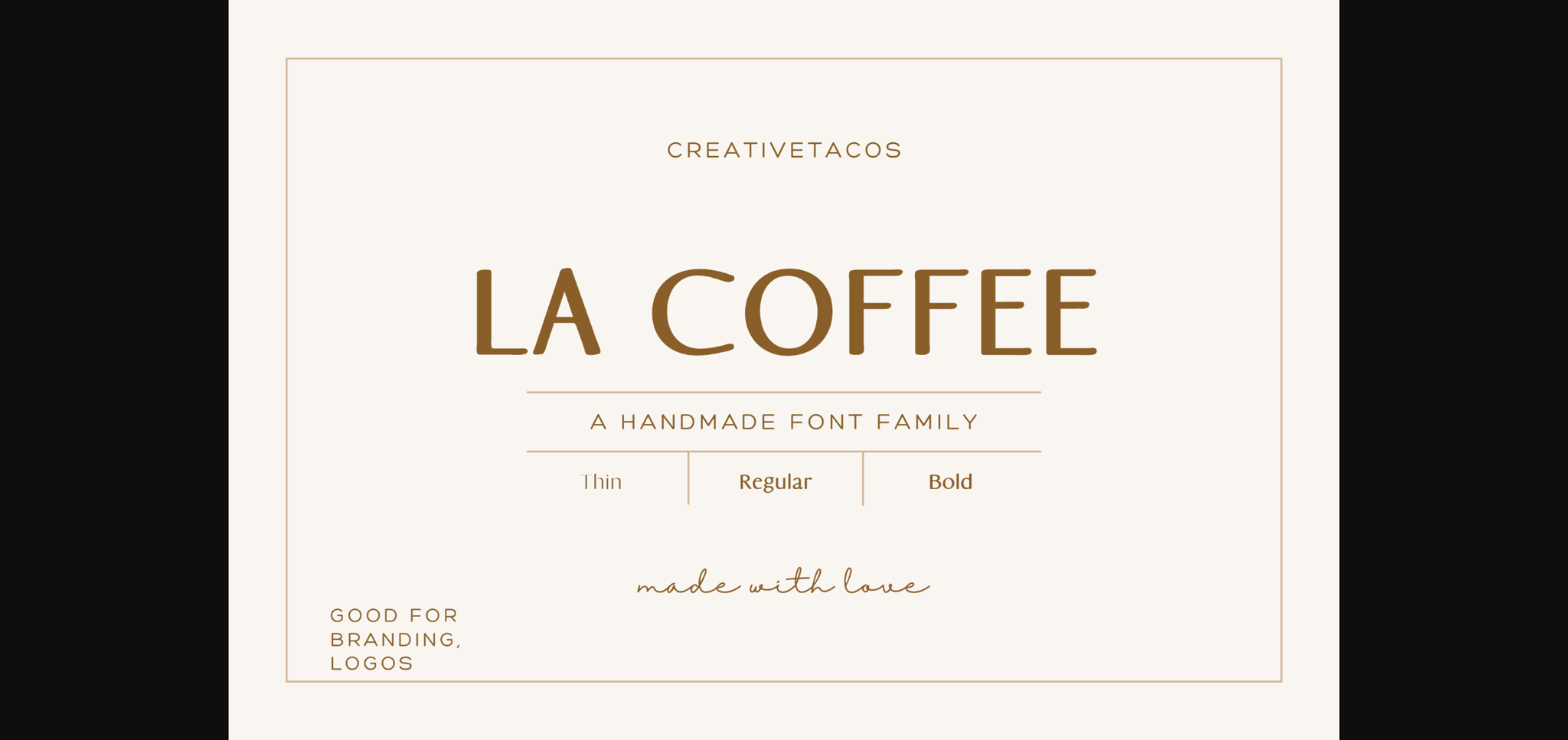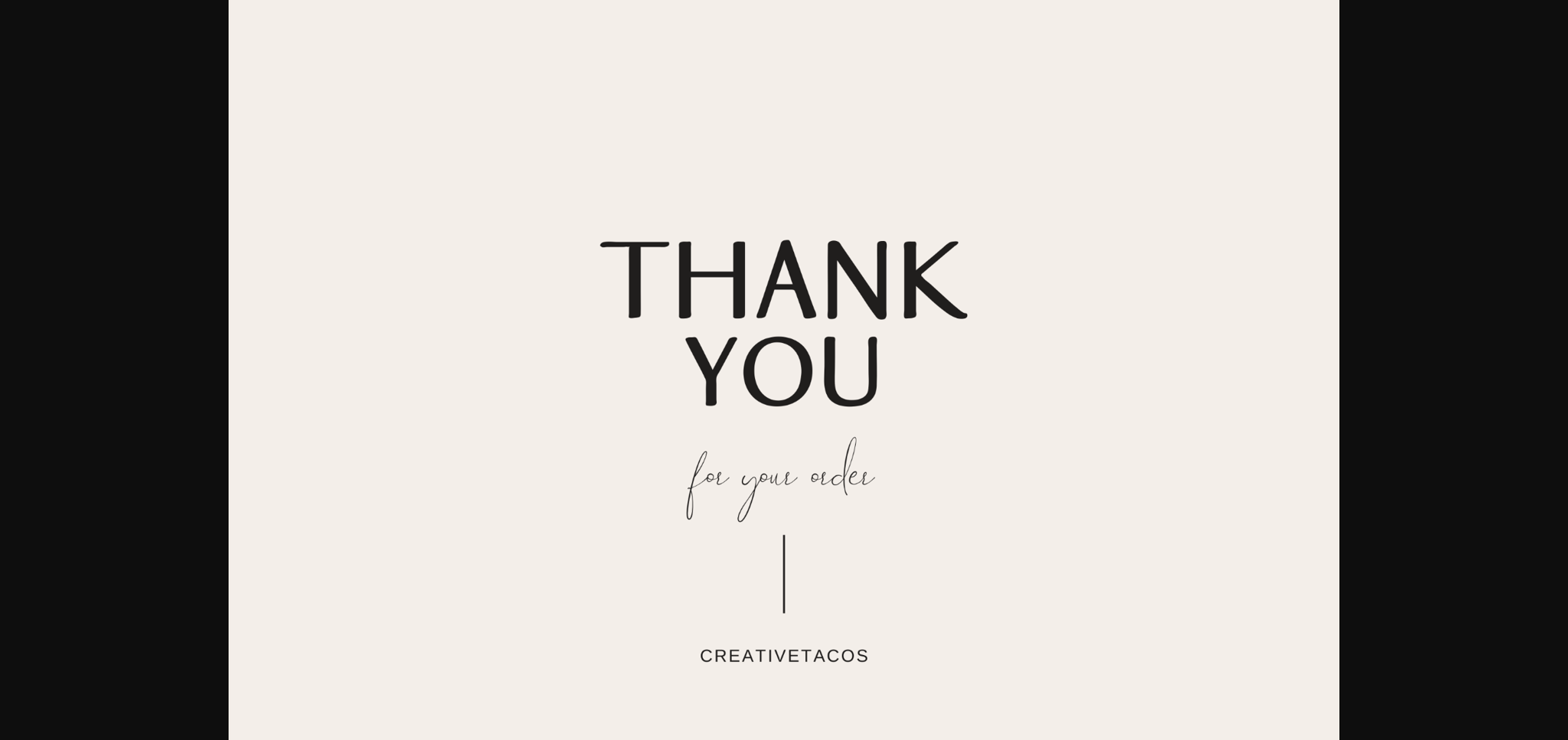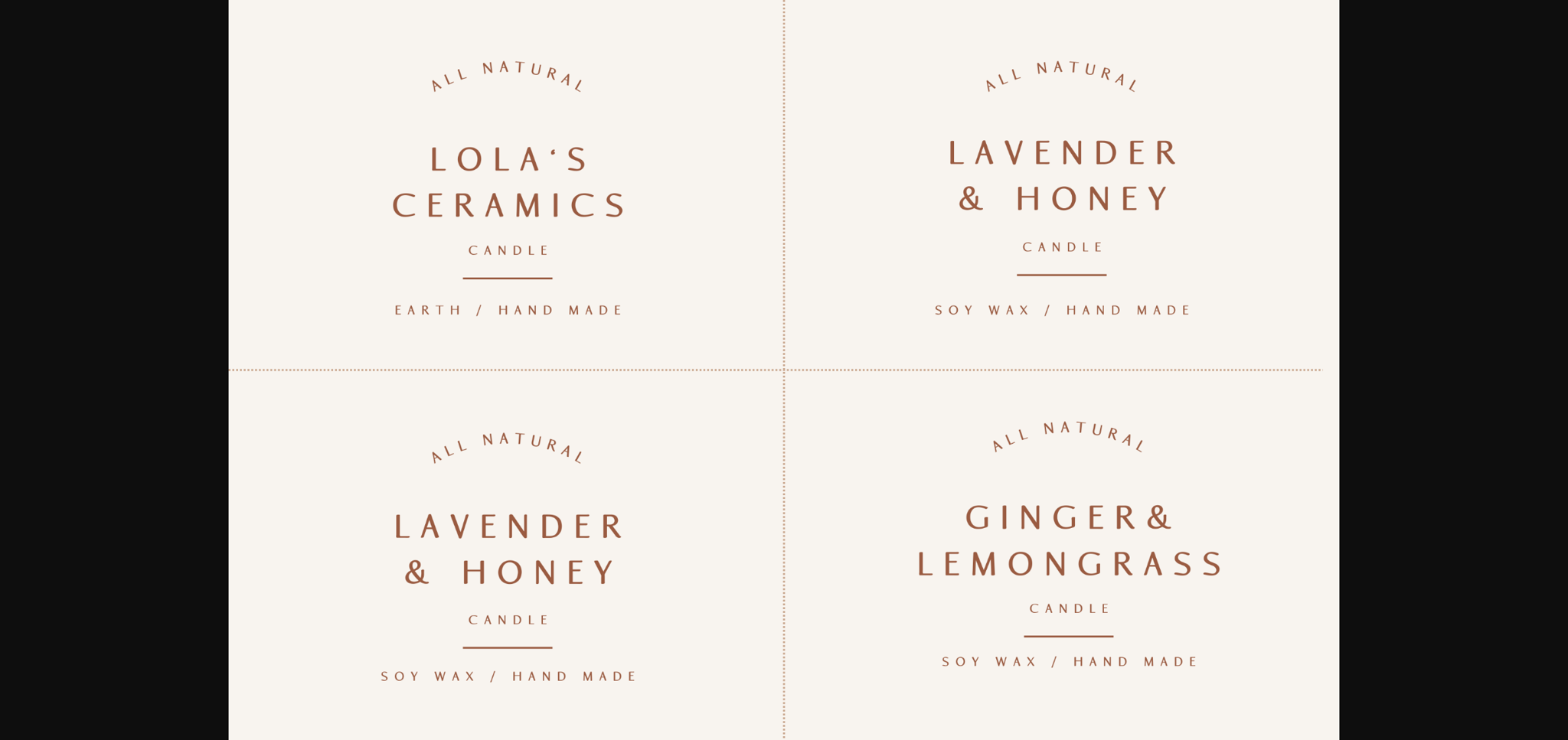
About La Coffee Font
Introducing La Coffee, a sleek, cool, and professional sans serif font that is perfect for adding a unique touch to your branding, logos, or Instagram quotes.
La Coffee will look great on invitations, packaging, slideshows, logos, headlines, lettering, posters, branding, inspirational quotes, headlines, magazine layouts, website designs, advertising, invitations, packaging designs, book covers, and any other creative endeavor.